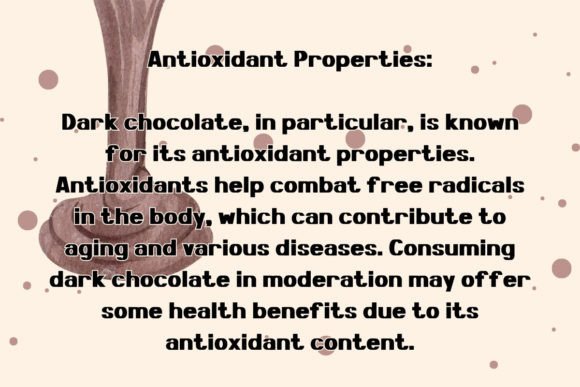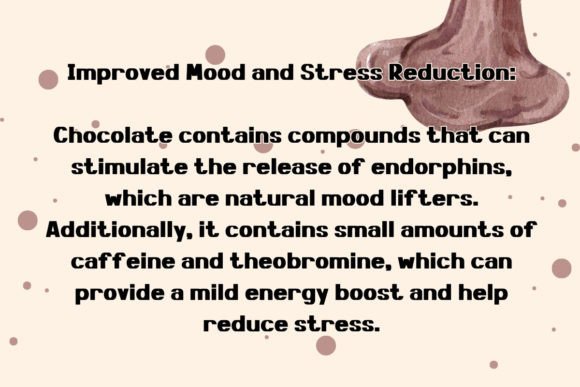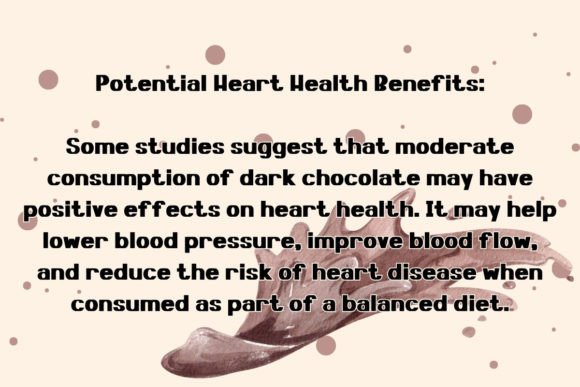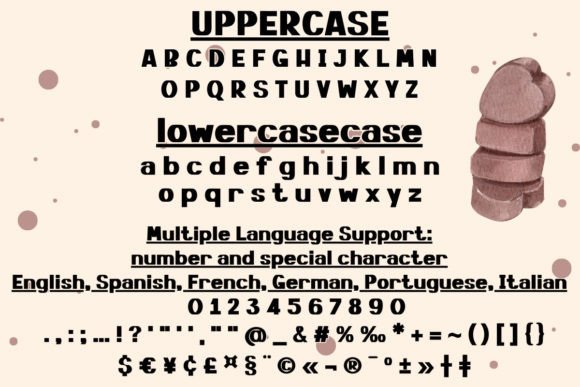
Introduction to Chocolate Flavor Font
Have you ever sat at your desk, surrounded by scattered design materials, and suddenly, the perfect font pops into your mind? For many designers, this moment is a spark that ignites an entire creative project. For me, it was the sweet, velvety taste of chocolate that inspired the Chocolate Flavor Font. This delightful font, with its rich, cocoa-infused design, is not just a design resource, but a reflection of the joy and pleasure that chocolate brings to our lives.
The Chocolate Flavor Font is a high-quality, free download that boasts a transparent background, perfect for designers looking to add a touch of whimsy and elegance to their projects. Its unique design makes it an ideal choice for creative projects that require a playful yet sophisticated feel. Whether you’re a seasoned designer or just starting out, this font is sure to bring a smile to your face and inspire your next design project.
So, why is the Chocolate Flavor Font so valuable for designers? Not only does it add a touch of personality to your work, but it also provides a fun and creative way to express yourself. With its high-quality design and transparent background, this font is the perfect addition to any designer’s toolkit.
Key Features of Chocolate Flavor Font
- High-quality, unique font design ideal for creative projects, including food and beverage branding, packaging, and advertising.
- Features a transparent background, making it easy to overlay on images or other design elements without compromising visual integrity.
- Designed with a high-resolution output in mind, ensuring crisp and clear text display across various mediums, including print and digital applications.
- Perfect for designers seeking a premium, high-quality design resource that adds a touch of elegance and sophistication to their creative project.
Honest Review: Chocolate Flavor Font
I recently came across the Chocolate Flavor Font and I must say it’s an interesting addition to any design resource. This font is perfect for creative projects that need a touch of whimsy and playfulness. The Chocolate Flavor Font has a unique design that’s sure to catch the eye.
What works well with this font is its versatility. It can be used for both digital and print designs, making it a great asset for any designer. The font also comes with a transparent background, which makes it easy to layer and style. Additionally, it’s a free download, making it accessible to designers of all levels.
- ✨ Unique design that’s perfect for creative projects
- ✨ Versatile font that can be used for digital and print designs
- ✨ Transparent background for easy layering and styling
However, there are some limitations to the Chocolate Flavor Font. The font is quite bold and may not be suitable for all types of designs. Additionally, the font’s unique design may be overwhelming for some projects. ⚠️ Be cautious when using this font, especially for more subtle designs.
Overall, the Chocolate Flavor Font is a high-quality design resource that’s sure to add some personality to any creative project. While it may have some limitations, it’s definitely worth considering for designers who want to add some whimsy to their work.